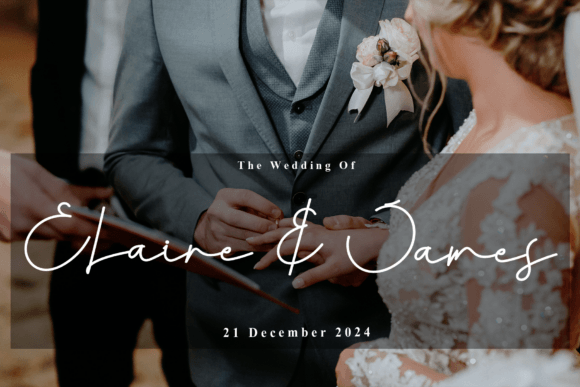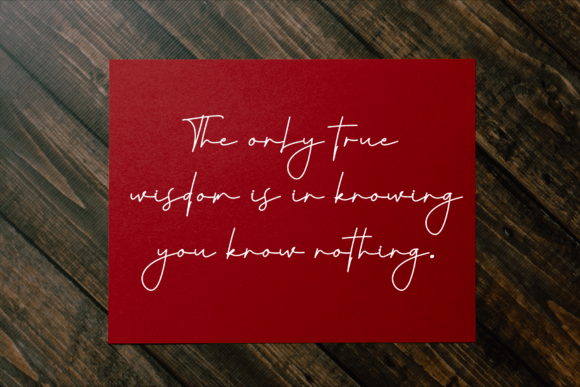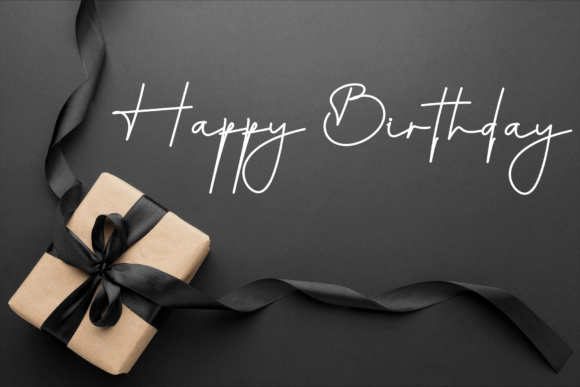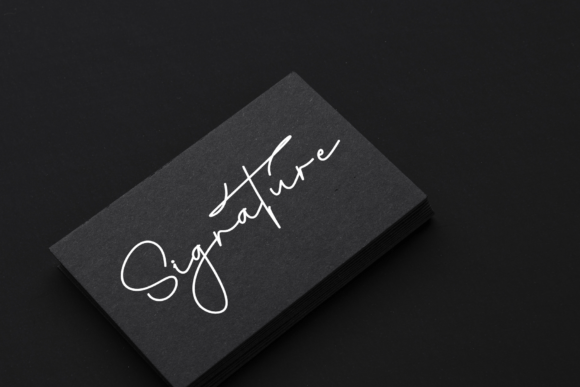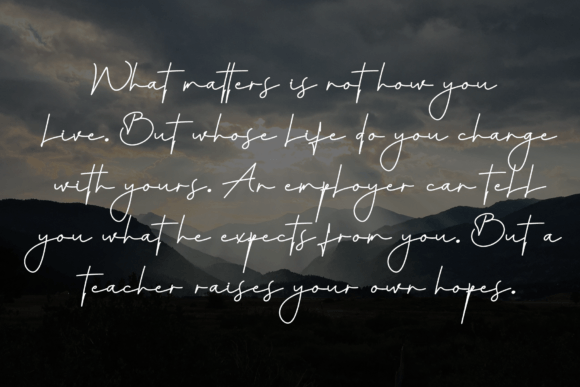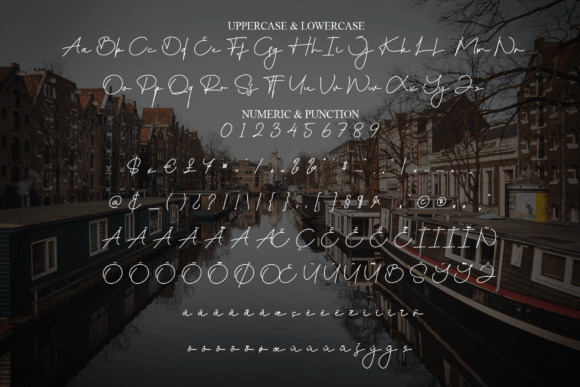
Introducing Amsterdam Font: The Perfect Handwritten Script for Festive Designs
Are you looking for a font that can add a personal touch to your designs? Do you want to create holiday cards, invitations, and seasonal projects that exude warmth and joy? Look no further than Amsterdam Font, a charming handwritten script font that’s perfect for making your designs stand out.
What is Amsterdam Font?
Amsterdam Font is a beautifully crafted handwritten script font that’s designed to bring a festive touch to your designs. Its flowing, elegant curves give it a warm and joyful feel, making it ideal for a wide range of creative projects. Whether you’re a designer, crafter, or DIY enthusiast, Amsterdam Font is the perfect choice for adding a personal touch to your work.
Key Features of Amsterdam Font
- Handwritten Script: Amsterdam Font is a genuine handwritten script font, giving it a unique and personal feel.
- Elegant Curves: The font features flowing, elegant curves that add a touch of sophistication to your designs.
- Warm and Joyful: Amsterdam Font has a warm and joyful feel, making it perfect for holiday cards, invitations, and seasonal projects.
- Festive Touch: The font is designed to add a festive touch to your designs, making it ideal for Christmas, Halloween, or any other holiday or celebration.
Uses for Amsterdam Font
Amsterdam Font is a versatile font that can be used for a wide range of creative projects. Here are some ideas to get you started:
- Holiday Cards: Use Amsterdam Font to create beautiful and personalized holiday cards for your loved ones.
- Invitations: Create festive invitations for parties, weddings, and other celebrations using Amsterdam Font.
- Seasonal Projects: Use Amsterdam Font to add a personal touch to your seasonal projects, such as Halloween decorations, Christmas gift tags, or Easter egg designs.
- Branding and Packaging: Amsterdam Font can also be used for branding and packaging projects, adding a touch of personality and whimsy to your designs.
Why Choose Amsterdam Font?
So why choose Amsterdam Font for your designs? Here are just a few reasons:
- Unique and Personal: Amsterdam Font is a unique and personal font that will add a touch of personality to your designs.
- Elegant and Sophisticated: The font’s elegant curves and sophisticated feel make it perfect for a wide range of creative projects.
- Easy to Read: Amsterdam Font is easy to read, even at small sizes, making it perfect for use in a variety of applications.
- Versatile: Amsterdam Font can be used for a wide range of creative projects, from holiday cards to branding and packaging.
Tips for Using Amsterdam Font
Here are a few tips for using Amsterdam Font in your designs:
- Use it with Color: Amsterdam Font looks great when paired with bright, festive colors. Try using it with red and green for a holiday feel, or with orange and black for a Halloween theme.
- Experiment with Sizes: Amsterdam Font can be used at a variety of sizes, from small and delicate to large and bold. Experiment with different sizes to find the one that works best for your project.
- Pair it with Other Fonts: Amsterdam Font can be paired with other fonts to create a unique and interesting look. Try pairing it with a bold, sans-serif font for a fun and modern contrast.
Amsterdam Font is a charming handwritten script font that’s perfect for adding a personal touch to your designs. Its flowing, elegant curves give it a warm and joyful feel, making it ideal for holiday cards, invitations, and seasonal projects. With its unique and personal feel, elegant and sophisticated curves, and versatility, Amsterdam Font is the perfect choice for designers and crafters looking to add a touch of personality to their work.